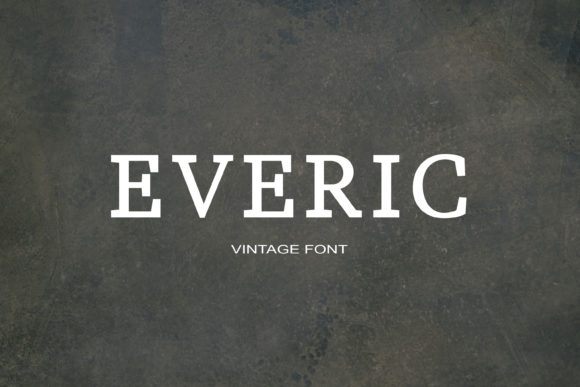
Welcome to the world of Everic, a font family that oozes confidence and nostalgia. Immerse yourself in the captivating spirit of the 80s, where bold typography reigned supreme. Everic's serif design exudes an air of timeless elegance, while its bold strokes add a touch of modernity that will make your designs stand out.
Are you ready to evoke a sense of longing and familiarity? Everic's retro charm will transport your audience back to a time of neon lights and leg warmers. Whether you're creating posters, flyers, or even branding for your business, Everic will effortlessly add a touch of vintage cool.
But don't let its retro roots fool you. Everic is a font family that's both versatile and adaptable. Its clean lines and legible letterforms ensure that your message will be conveyed with clarity and impact. Whether you're targeting a tech-savvy audience or a nostalgic crowd, Everic has the power to connect with them.
Embark on a typographic journey with Everic, where the past and present collide in perfect harmony. Let the bold strokes and retro flair of this font family ignite your creativity and leave an unforgettable impression on your audience.